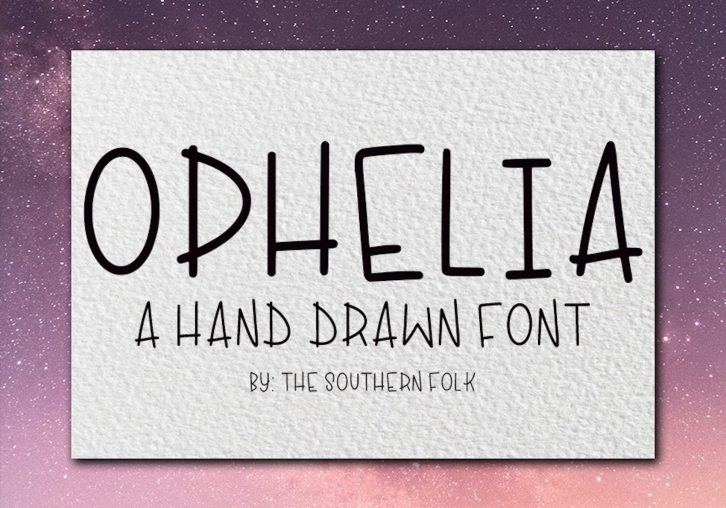
Ophelia FONT This font is named: TSFophelia *The TSF has been added to make it easier to find in your font library.
This font is perfect for: logos, branding, wedding invitations, business cards, greeting cards, posters, magazines, social media, planner prints and websites.